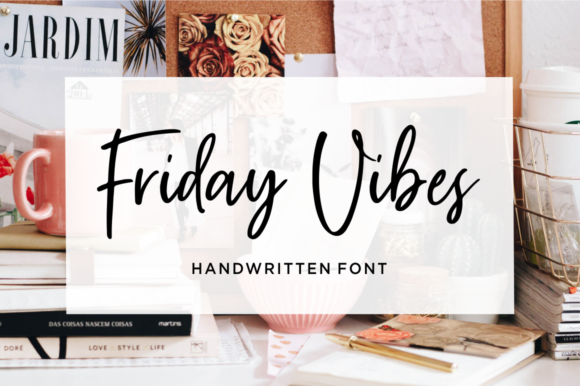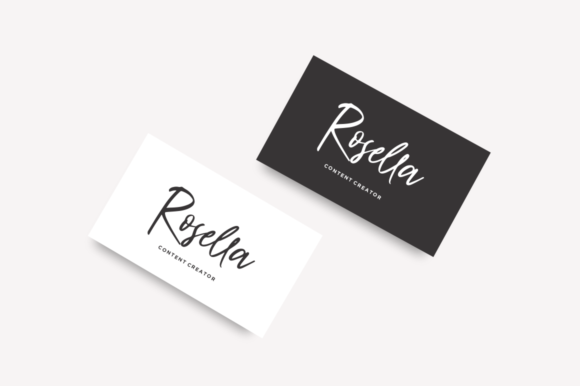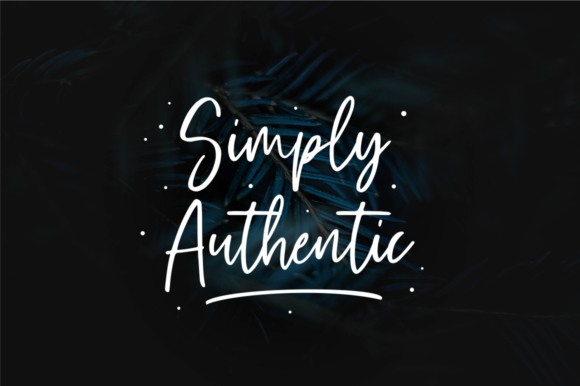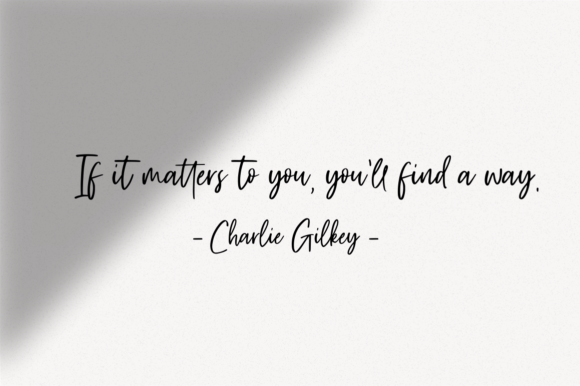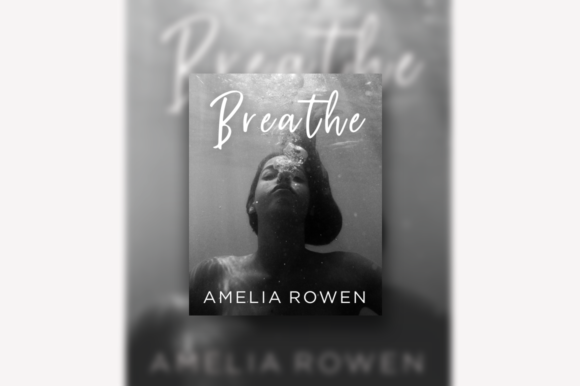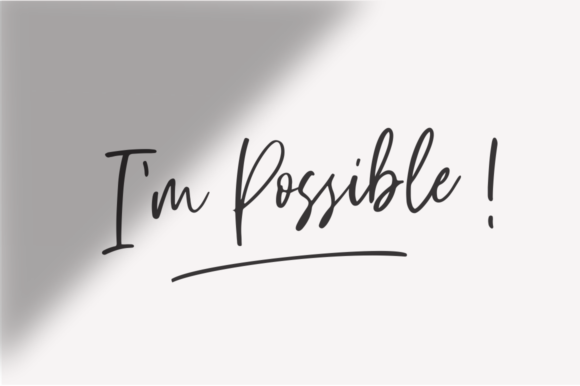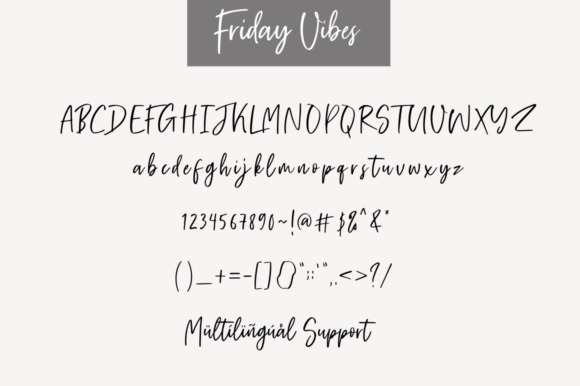
Friday Vibes Font
About Friday Vibes Font
The Friday Vibes is a modern & fresh hand-lettering font. It has a natural style and is perfect for any awesome project.
It can be used for logos & branding, invitations, stationery, wedding designs, social media posts, advertisements, product packaging, product designs, labels, and much more!